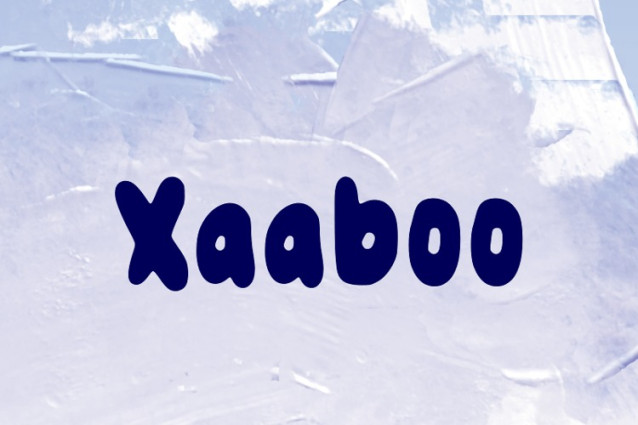
Xaaboo Font
Xaaboo Font is a chunky, comic, and cartoon display font. With its neat and joyful personality, this font will enhance any project you wish to create!